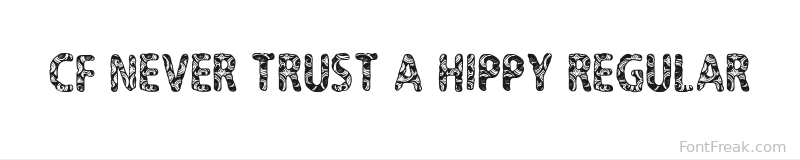
CF Never Trust A Hippy Regular
CF Never Trust A Hippy Regular by Cloutierfontes is a distinctive display font that captures a playful and whimsical spirit, making it a perfect choice for various creative projects. This font features a unique handwritten style that exudes an organic, free-spirited vibe, showcasing an eclectic mix of playful strokes and decorative elements. The strokes are bold yet slightly irregular, giving the font a hand-drawn appearance that enhances its personality. The contrast between thick and thin lines adds visual interest, while the generous spacing between characters ensures readability, making it versatile for multiple applications.
This font is ideal for use in contexts such as wedding invitations, where its charming aesthetic can set a relaxed and joyful tone. It also shines on movie posters, especially for indie films or documentaries that aim for a laid-back, artistic feel. Restaurant menus can benefit from its quirky character, drawing attention to special dishes or themed nights. Additionally, CF Never Trust A Hippy Regular lends itself well to merchandise designs, like T-shirts or tote bags, appealing to audiences who appreciate unique, handcrafted aesthetics.
Targeting graphic designers, small business owners, and content creators, this font allows for creative expression while maintaining a sense of fun. It’s an excellent choice for those looking to add a personal touch to their branding or projects.
What sets CF Never Trust A Hippy Regular apart is its ability to blend personality with functionality. Its playful nature invites engagement while ensuring clarity, making it a remarkable addition to any designer’s toolkit. With the CF Never Trust A Hippy Regular font free download, you can easily incorporate this unique typeface into your own projects and let your creativity flourish.